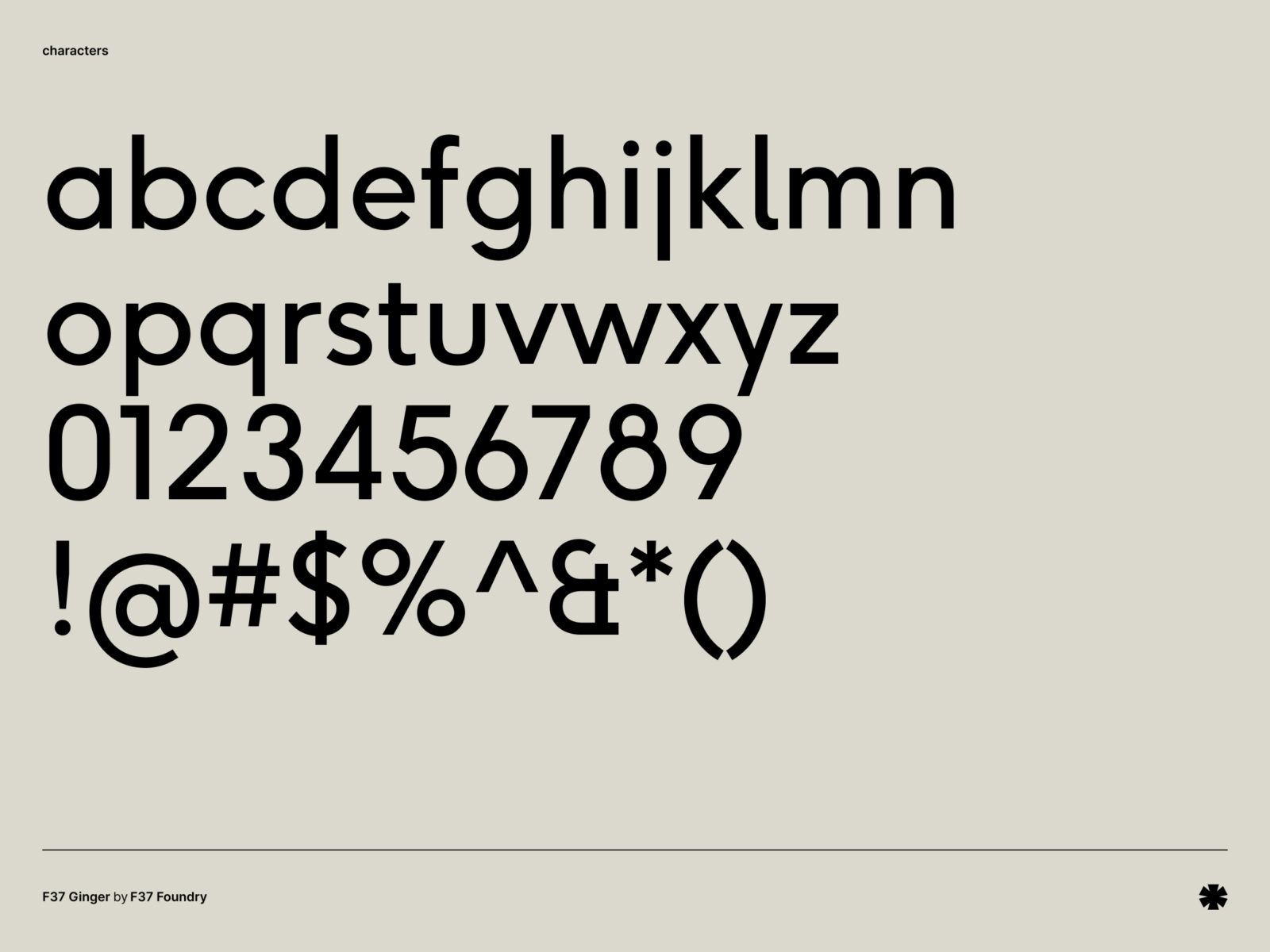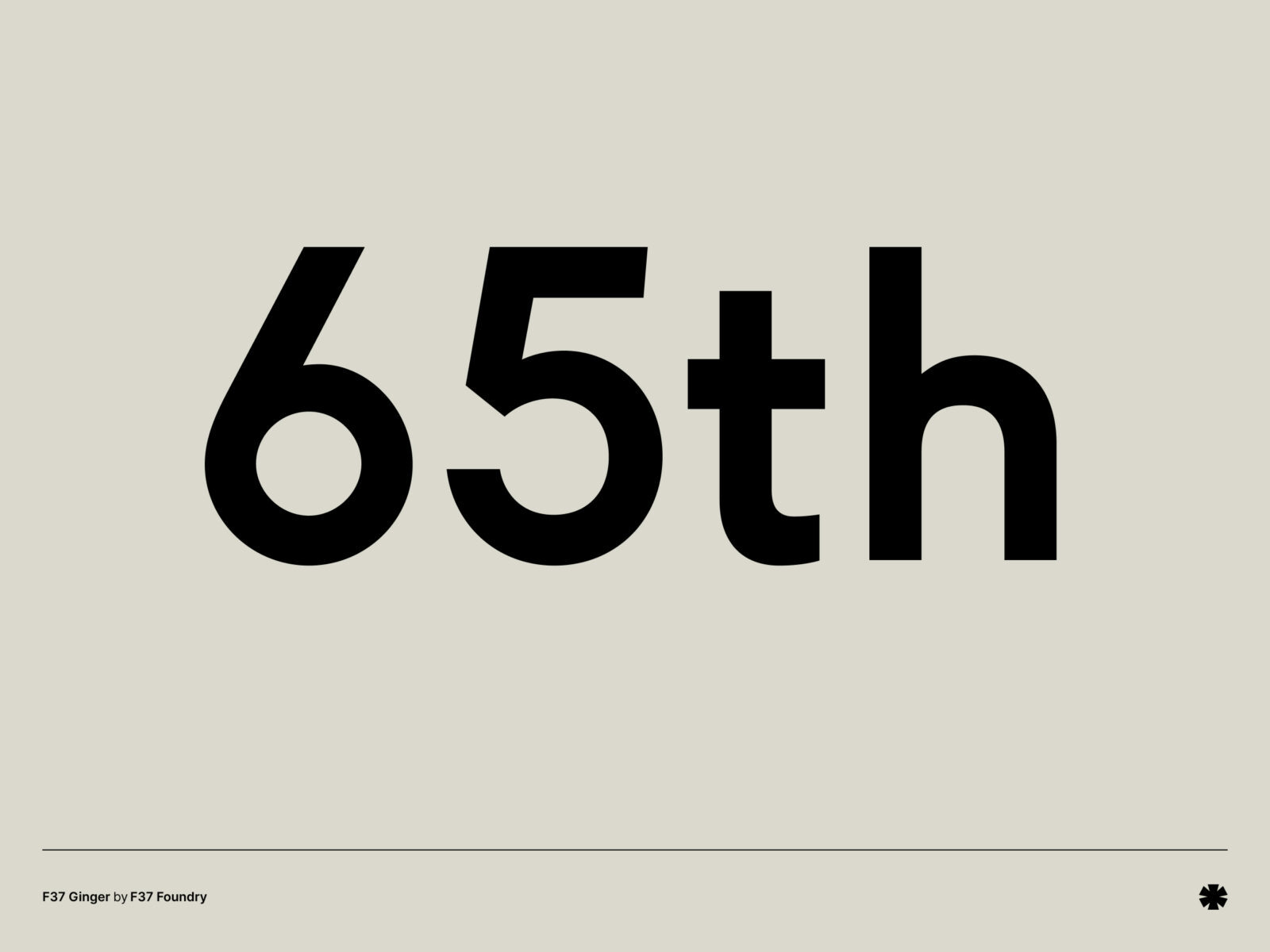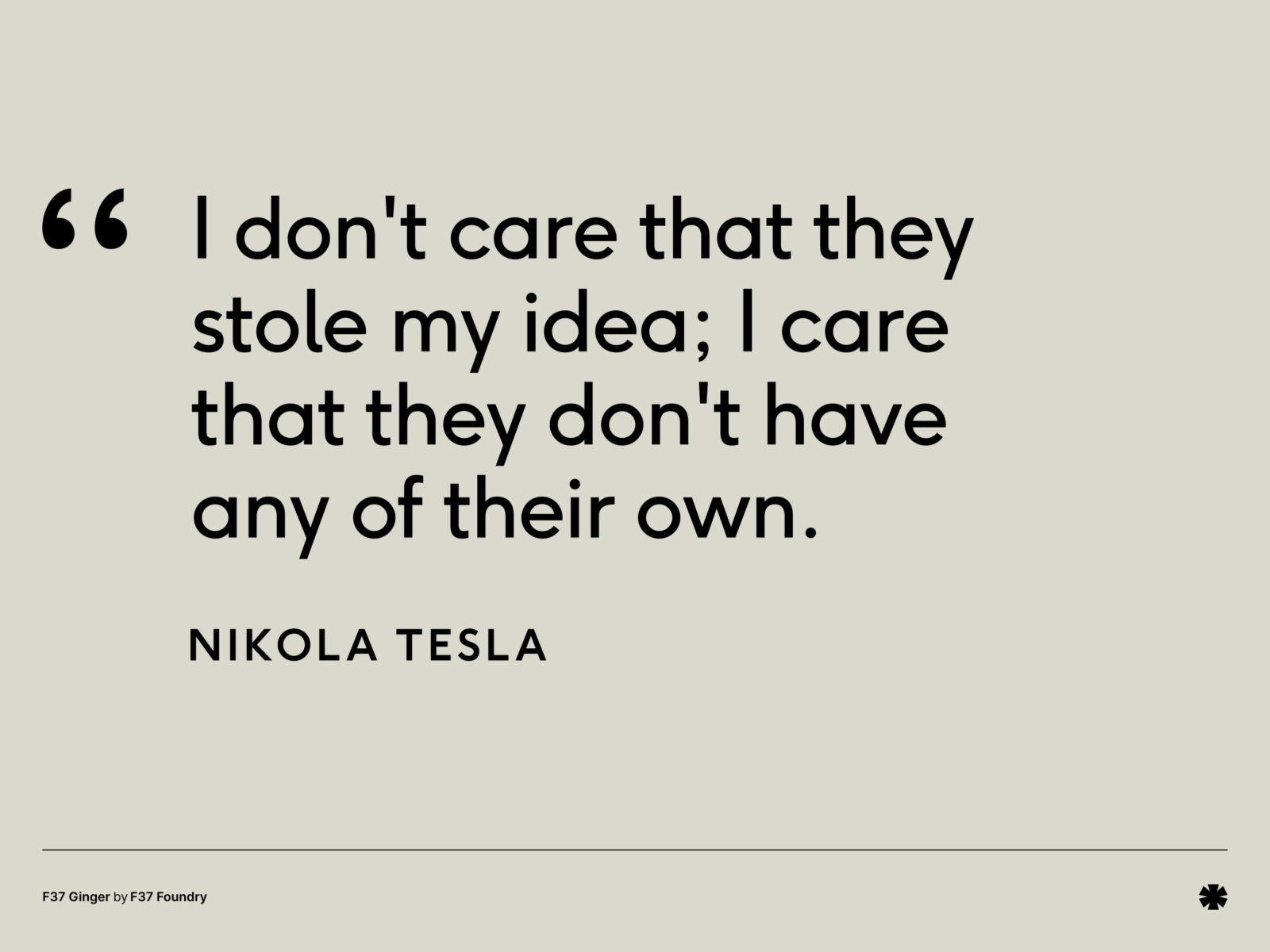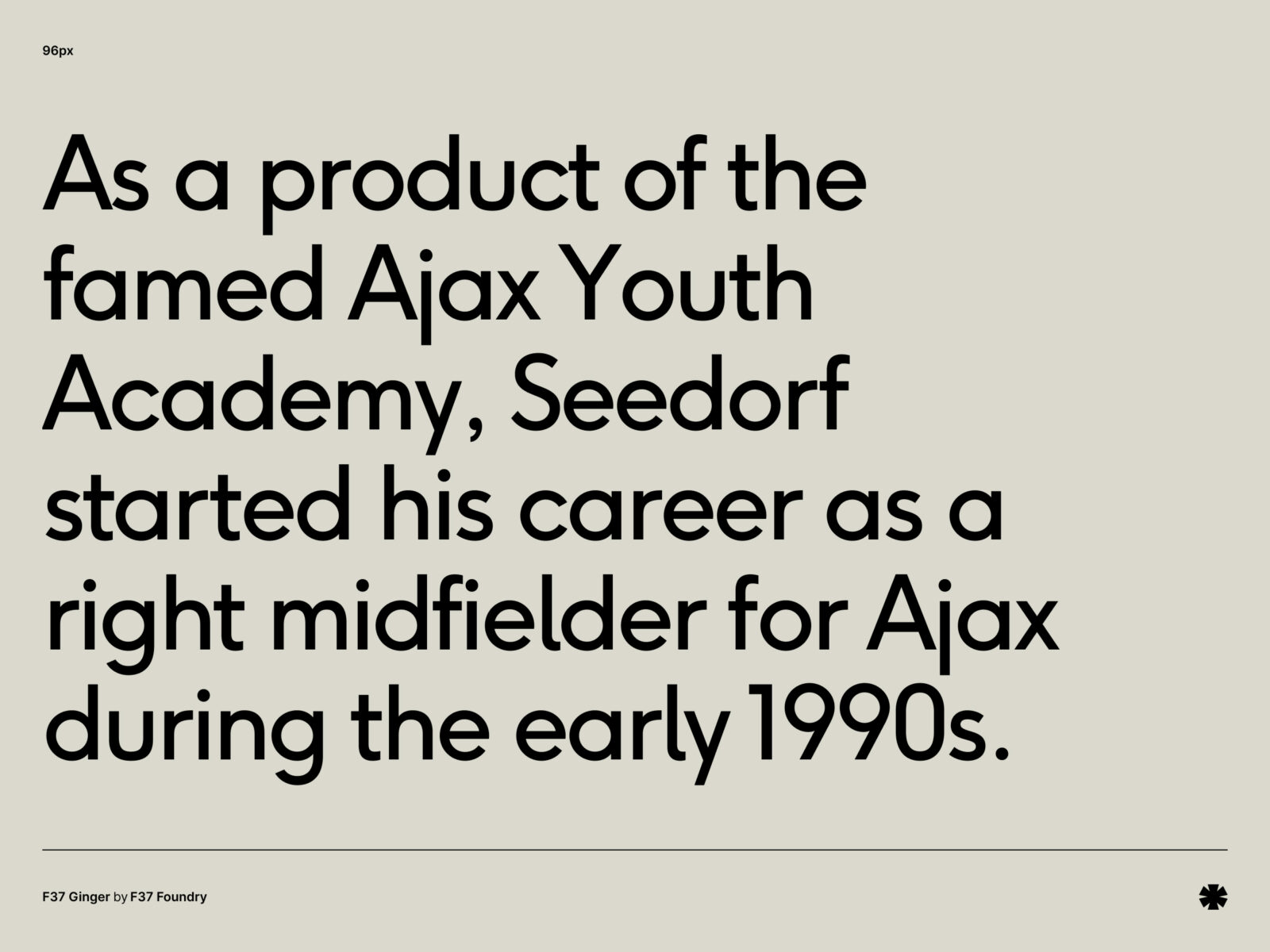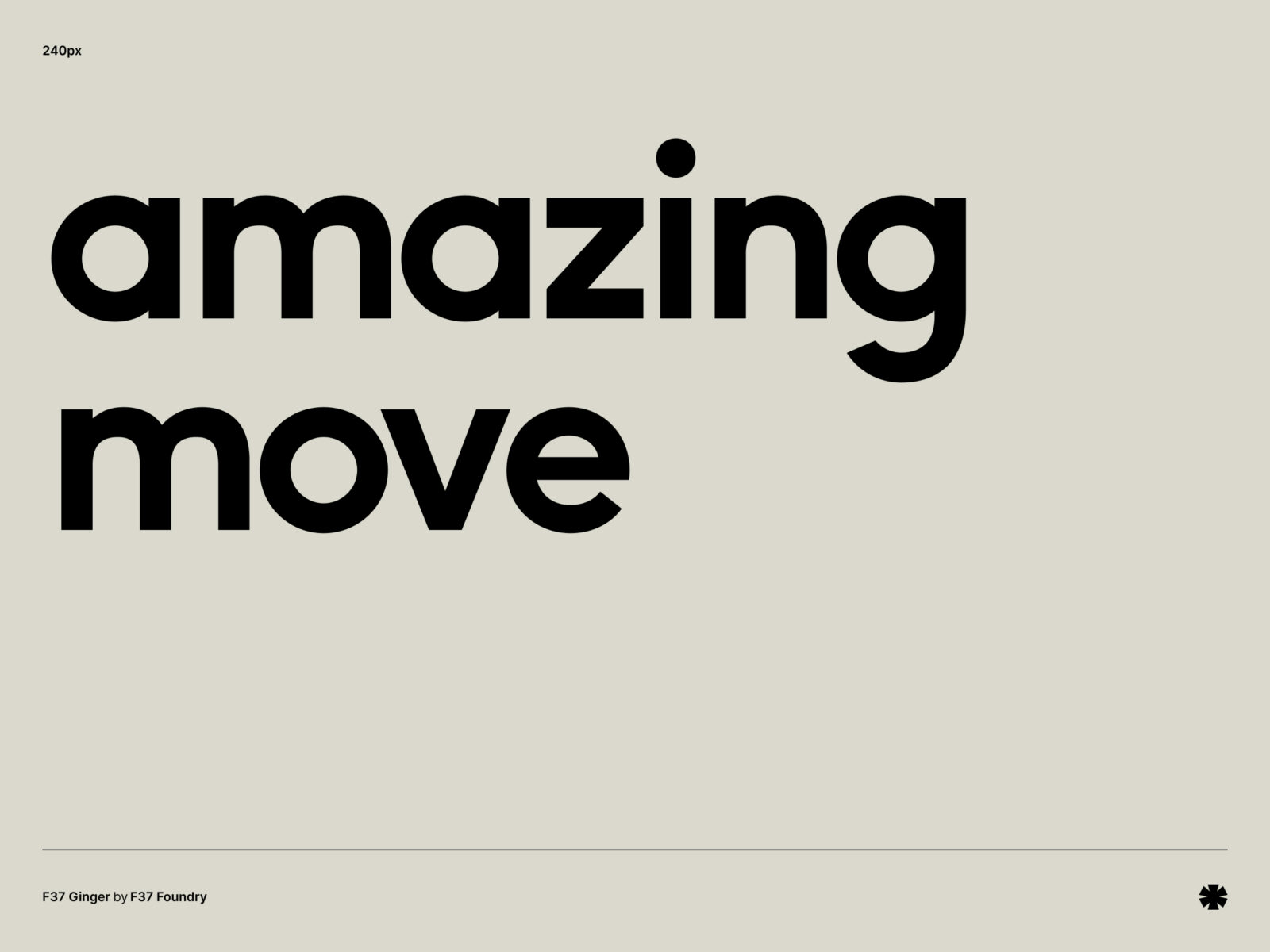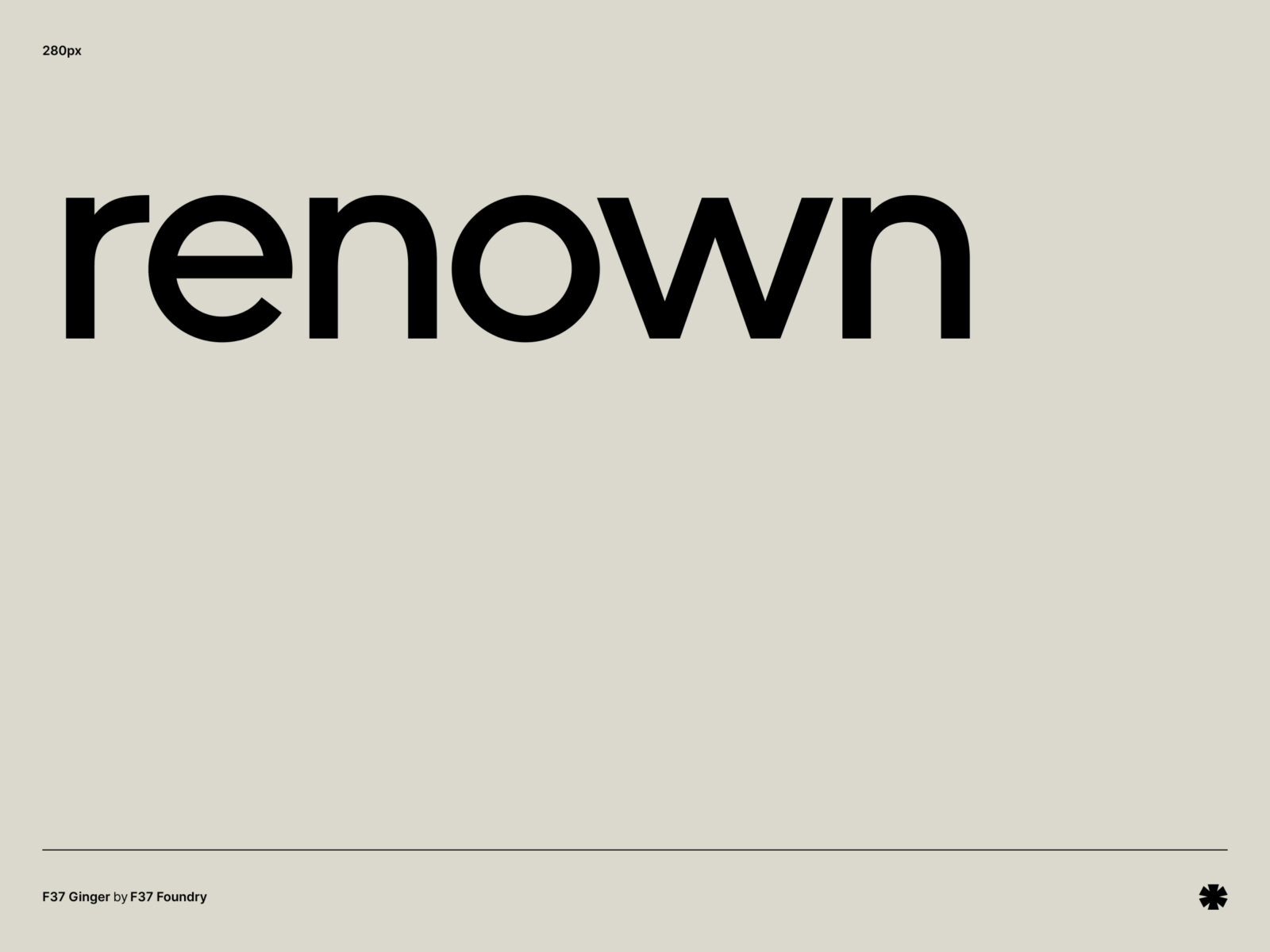
F37 Ginger
by F37 Foundry
A timeless Swiss sans serif with a quirky geometric twist. Inspired by Paul Renner and Herb Lubalin.
foundry F37 Foundry
designer Rick Banks
release year 2013